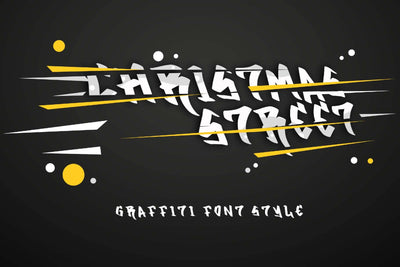
Christmas Street
"Christmas Street" is an elegant and unique graffiti font. This font is equipped with uppercase, lowercase, numerals, punctuations and multilingual support. very suitable for Christmas, Christmas greetings, Christmas events, logos, banners, posters, prints, branding, stickers and others.